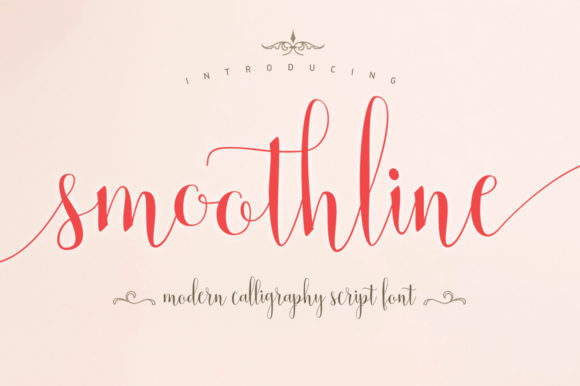
Unleash the Magic of Smoothline: Where Elegance Meets Romance
In the realm of digital artistry, fonts hold the power to transform ordinary words into captivating expressions, evoking emotions and setting the tone for your creative endeavors. Among this enchanting world of typography, Smoothline emerges as a radiant gem, a script font designed to cast a spell of elegance and romance upon your projects.
Crafted by the visionary minds at Area Type, Smoothline embodies the very essence of handwritten beauty, capturing the graceful flow and delicate strokes of a skilled calligrapher's pen. Its versatile nature knows no bounds, seamlessly adapting to a myriad of creative applications, from the heartfelt warmth of greeting cards to the bold allure of captivating headlines. With Smoothline as your creative companion, your designs will radiate an aura of timeless sophistication, leaving an enduring impression on all who behold them.
Dive into the depths of Smoothline's character set, and discover a treasure trove of exquisite glyphs and swashes, each meticulously designed to add a touch of individuality and charm to your creations. With its PUA encoding, accessing these typographic gems is a breeze, ensuring that your creative vision knows no limits.
Picture this: a wedding invitation adorned with Smoothline's graceful curves, exuding an ethereal elegance that sets the tone for a day filled with love and joy. Or perhaps a heartfelt greeting card, its message penned in Smoothline's enchanting script, conveying your warmest sentiments with a touch of timeless charm. The possibilities are endless, as Smoothline effortlessly transforms the mundane into the extraordinary, leaving a lasting impression on all who encounter its captivating allure.
Step into the world of Smoothline and embark on a creative journey where elegance and romance intertwine. Let your imagination soar as you explore the limitless possibilities that await you. Discover the magic of Smoothline, and elevate your designs to new heights of beauty and sophistication.